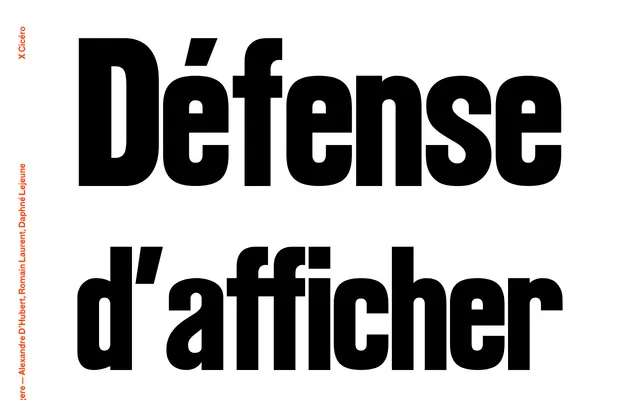
Affigere
A display typeface drawn from the visual language of French public notice typography, referencing the 1881 bill-posting law.
Affigere takes its cues from the large, blunt lettering found on French public notices and bill-posting culture, with the page invoking the familiar 'Défense d'afficher' prohibition. The design occupies the territory of vernacular display type suited to posters and large-scale graphic work. Little technical detail is available from the page, but the typographic character is bold and rooted in a specific cultural tradition.
The page presents Affigere as a display typeface with bold, poster-scale lettering evocative of French public notice typography and bill-posting tradition.